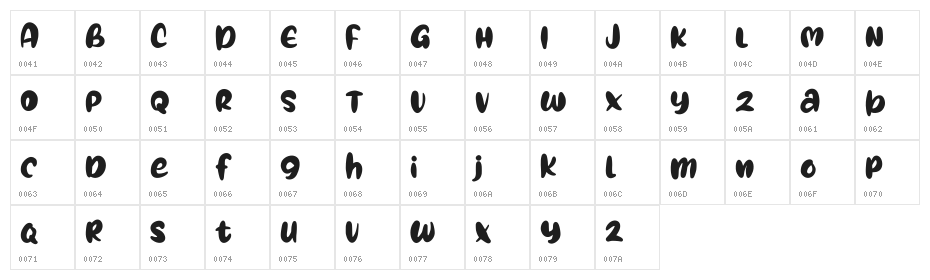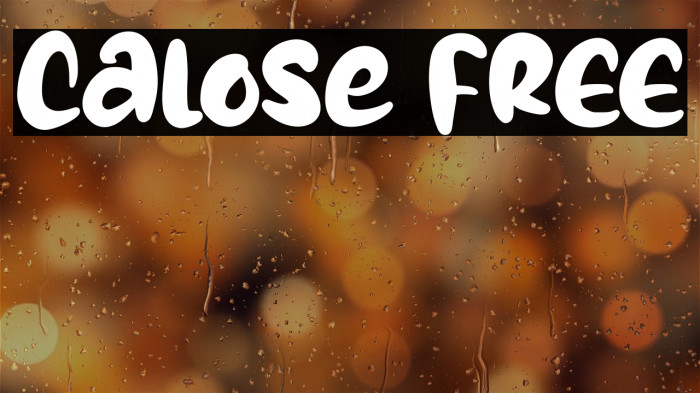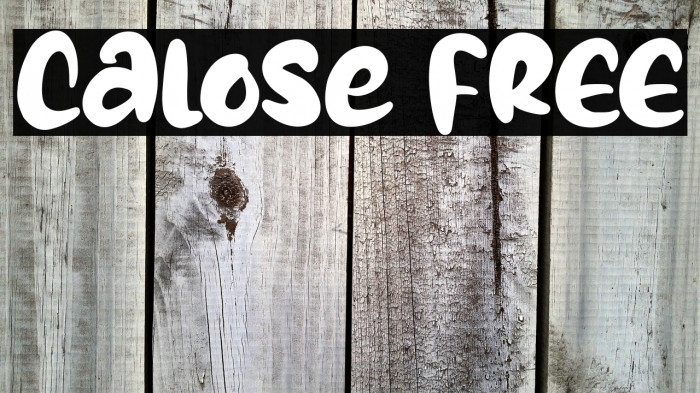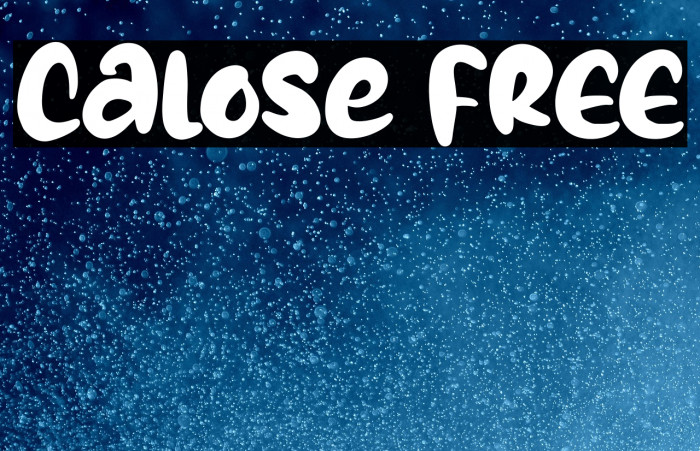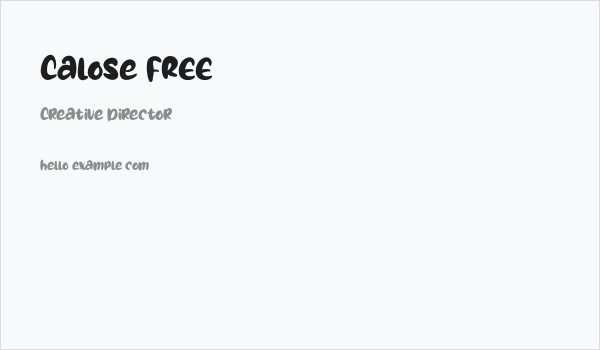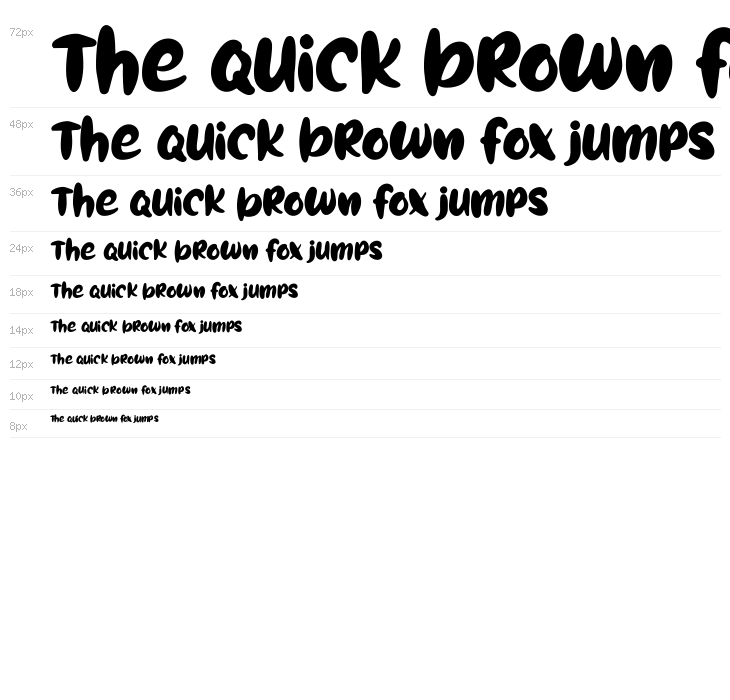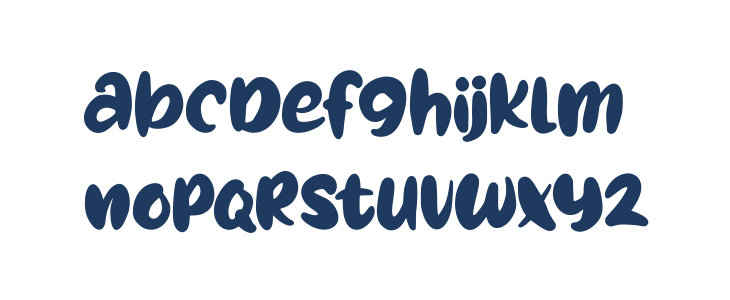
Calose FREE Font
Calose FREE Description
This font features a bold and playful style with rounded, thick strokes that give it a friendly and approachable appearance. The letters are consistently wide and have a smooth, flowing quality, making them ideal for creating a sense of warmth and fun. The uppercase and lowercase letters maintain a uniform thickness, contributing to the font's cohesive look. The numbers and special characters are designed with the same playful aesthetic, ensuring they blend seamlessly with the alphabet. This font's boldness and unique character make it stand out, perfect for projects that require a touch of whimsy and creativity.
| Overall Style | Playful, Fun |
| Proposed Projects | Ideal for children's books, playful branding, party invitations, and creative posters. |